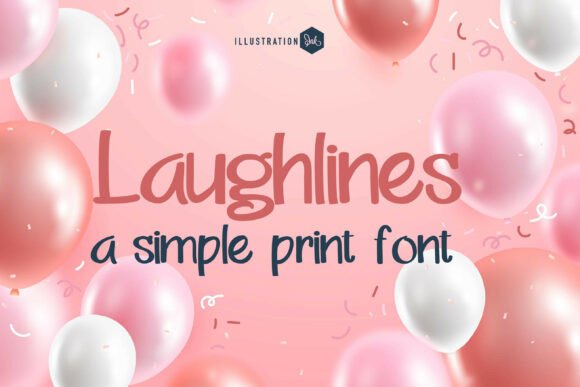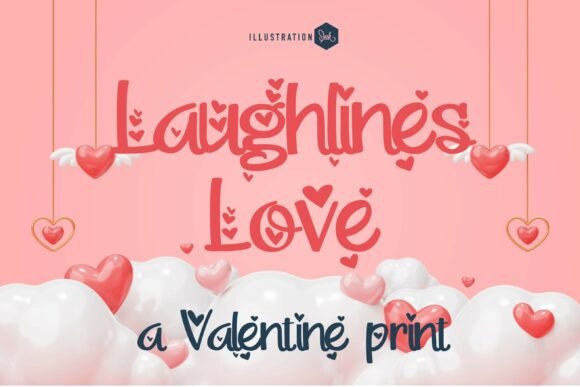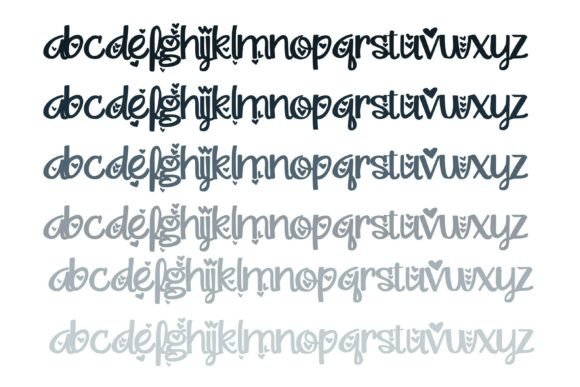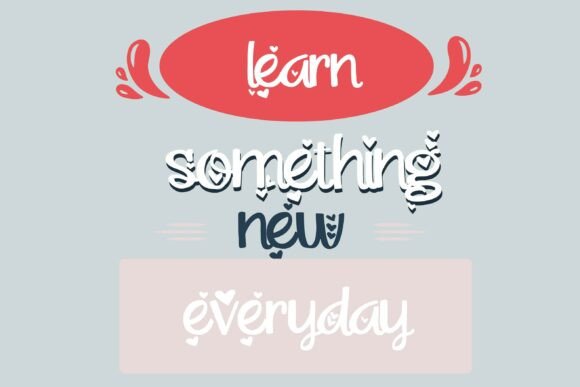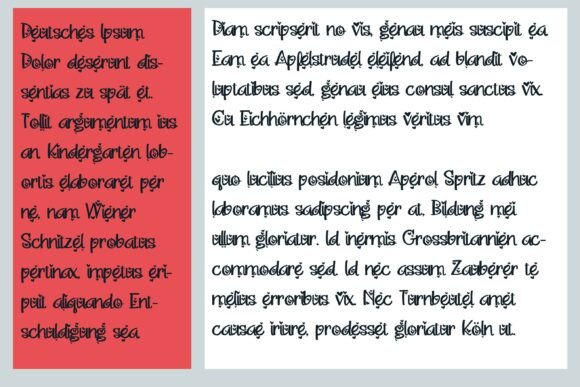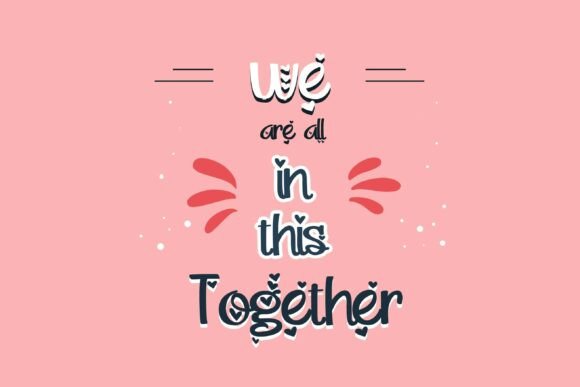
Introduction to Laughlines Font
Bring a smile to your designs with Laughlines font, a breezy and cheerful handwritten decorative display typeface that celebrates joy and spontaneity.
| ๐ค Author | Illustration Ink |
This โprint fontโ Laughlines typeface features a relaxed, casual rhythm and delicate heart accents that flutter around the letters like confetti It is the ideal choice for party planning businesses, celebratory social media posts, and lighthearted greeting cards.
Key Features of Laughlines Font